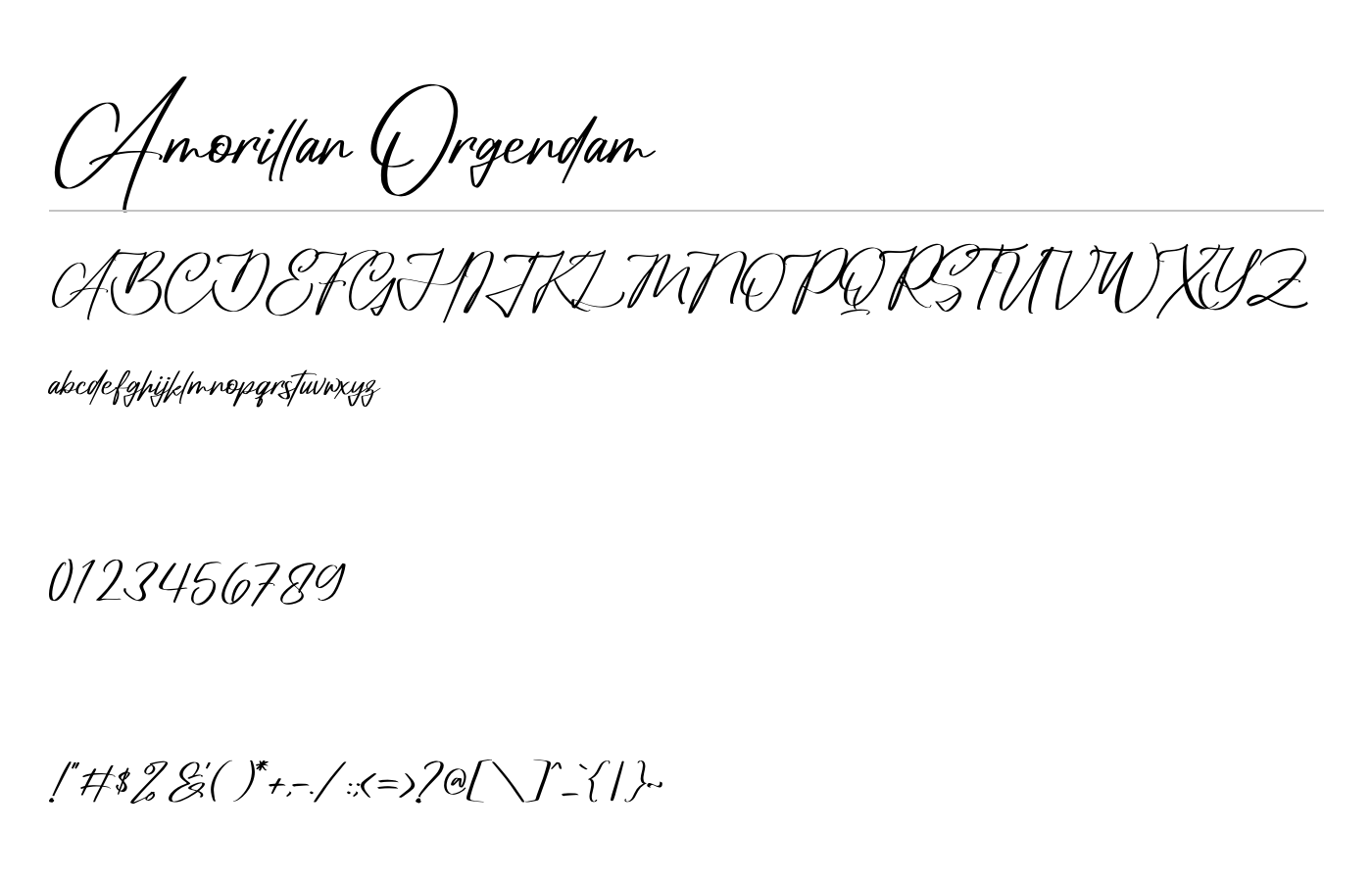
Amorillan Orgendam is an elegant script font characterized by its flowing, delicate strokes and a handwritten feel. It features a light weight with slender, slightly condensed letterforms, combining smooth curves with sharp, refined details, making it perfect for projects that need a touch of sophistication and personal charm. This font works beautifully for invitations, branding, and editorial designs where a graceful, stylish impression is desired.
Amorillan Orgendam Font
About Amorillan Orgendam Font